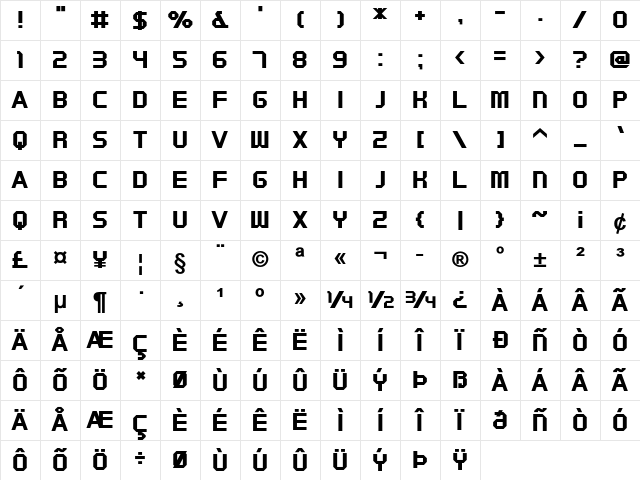
Embeda Bold
Embeda Family
Embeda Bold
Design Context for Embeda
Embeda is a composed and adaptable typeface that performs quietly and consistently across a wide range of design contexts. Its bold stroke weight gives it real presence on the page.